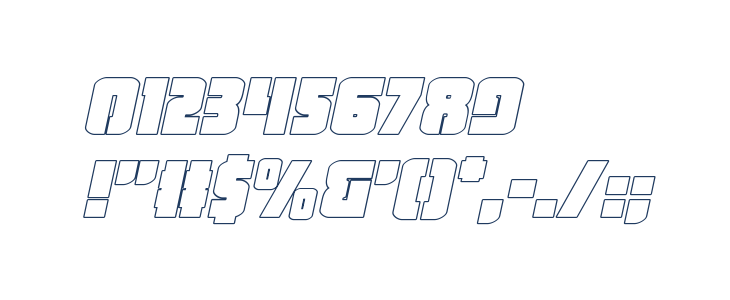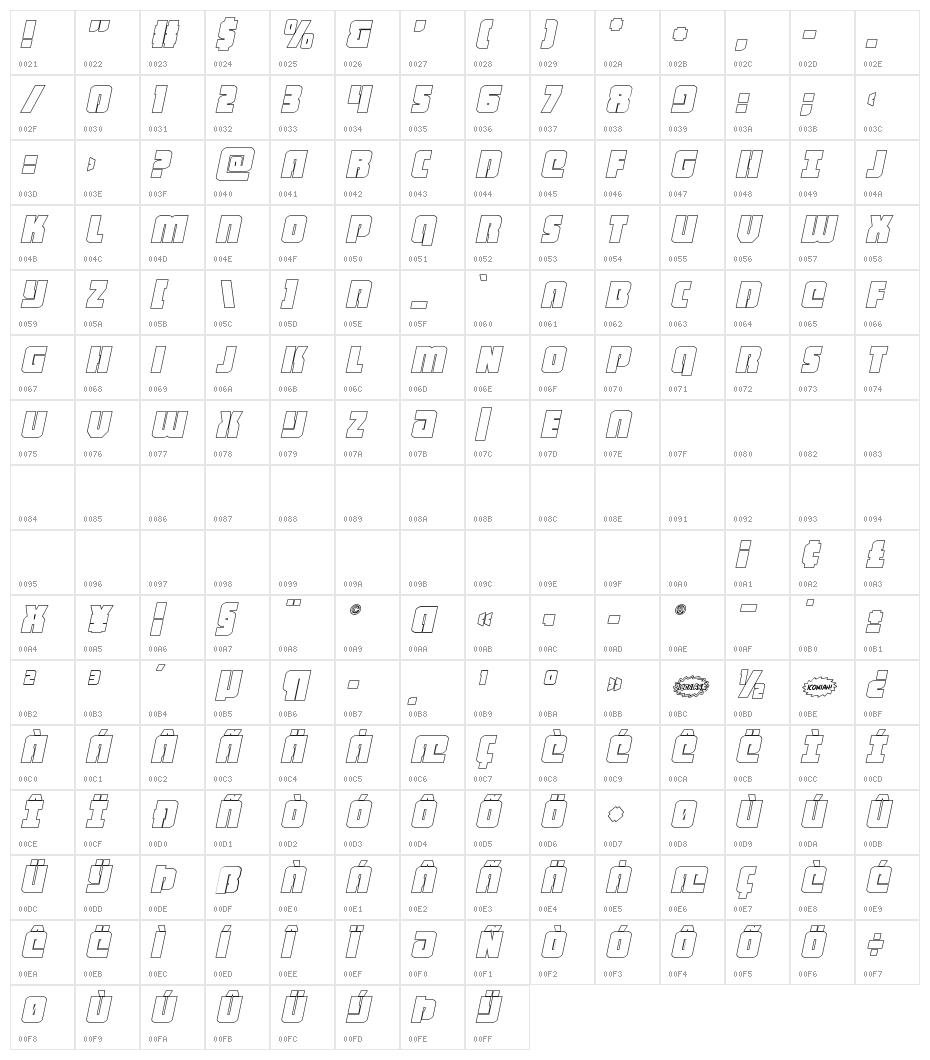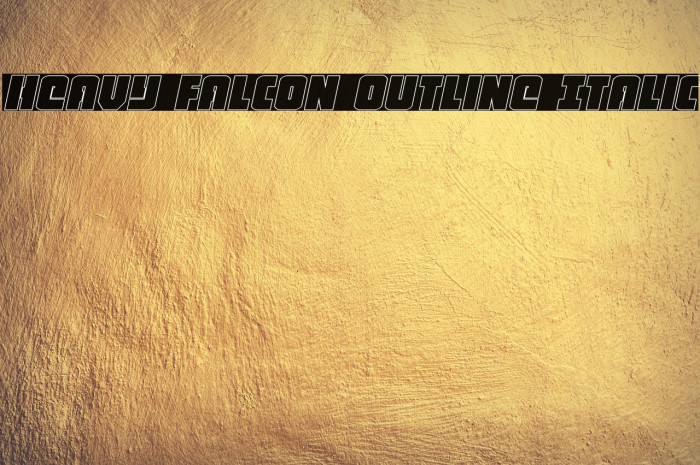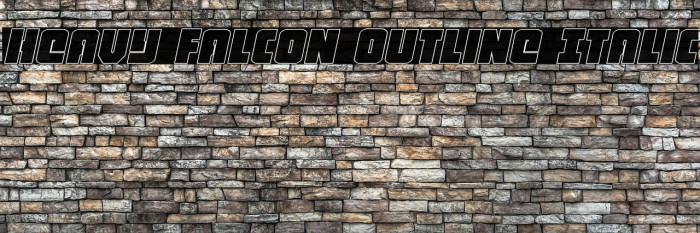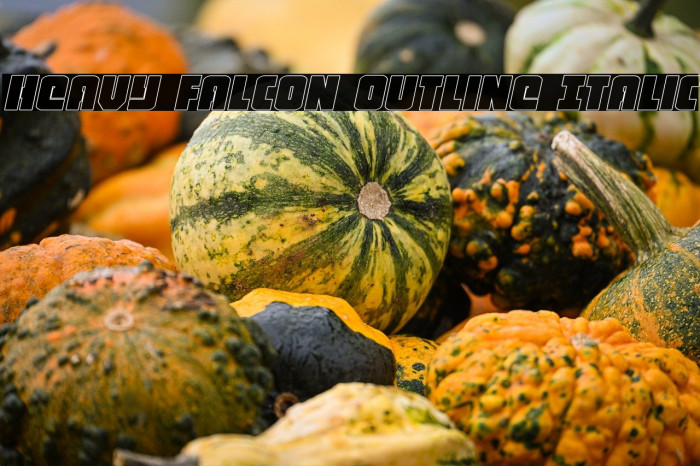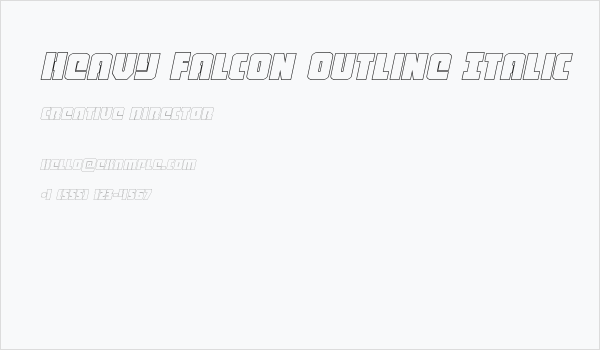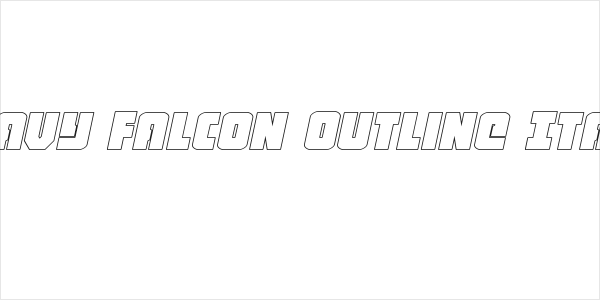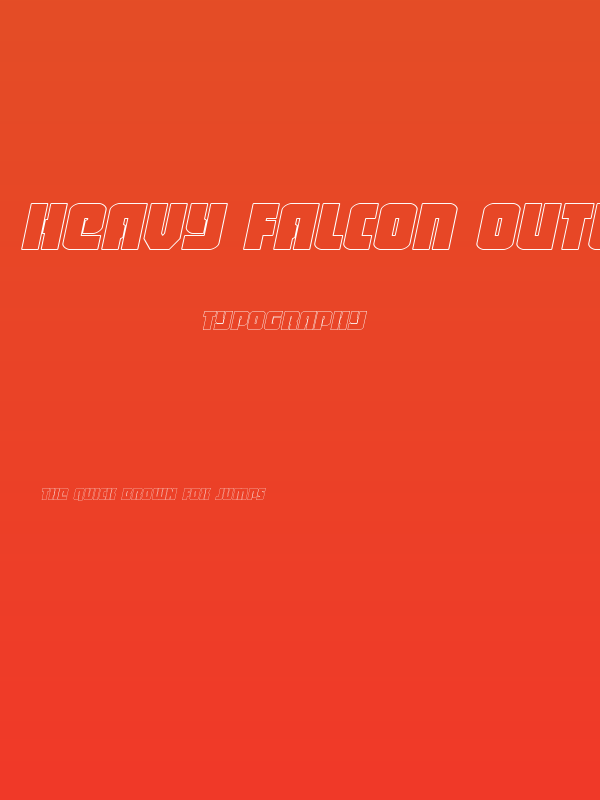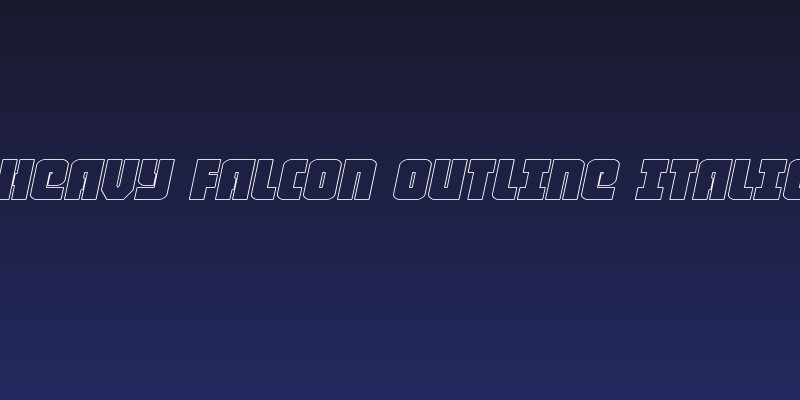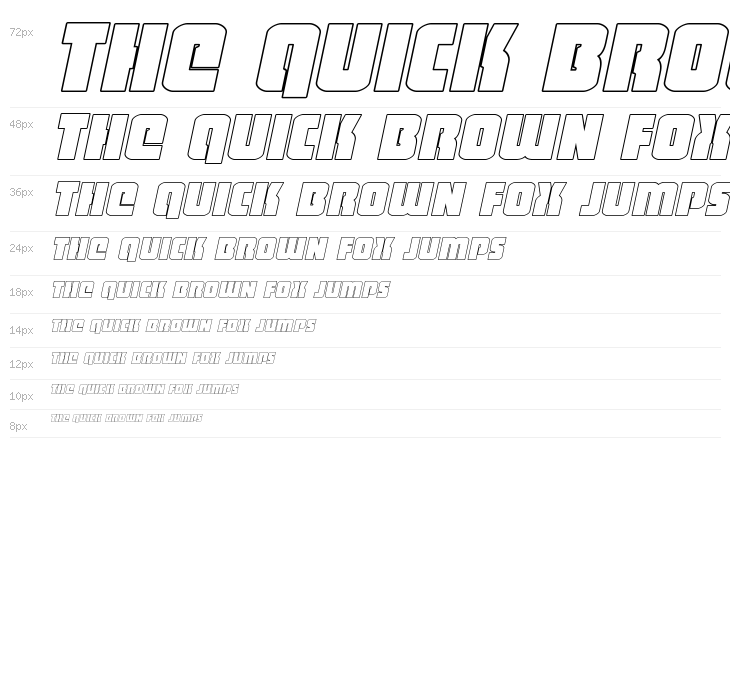
Heavy Falcon Outline Italic Font
Heavy Falcon Outline Italic Description
This font features a bold, italicized outline style that gives it a strong and dynamic appearance. The characters are designed with a heavy weight, yet the outline nature provides a sense of openness and space. Each letter is slightly slanted, enhancing the italic effect, while the outlines are clean and precise, adding a modern touch. The font maintains a consistent width across all characters, ensuring uniformity and balance. Its geometric shapes and sharp angles contribute to a futuristic and edgy vibe, making it suitable for eye-catching designs.
| Proposed Projects | Ideal for sports branding, futuristic posters, video game titles, and dynamic logo designs. |